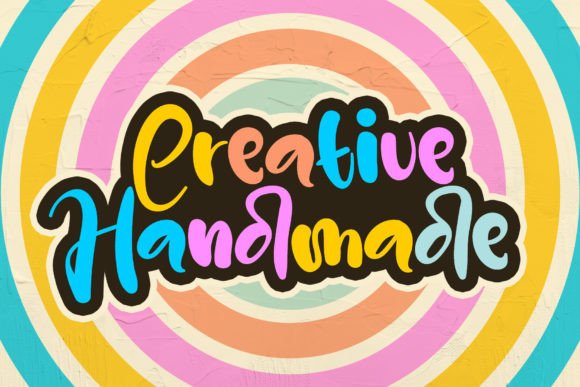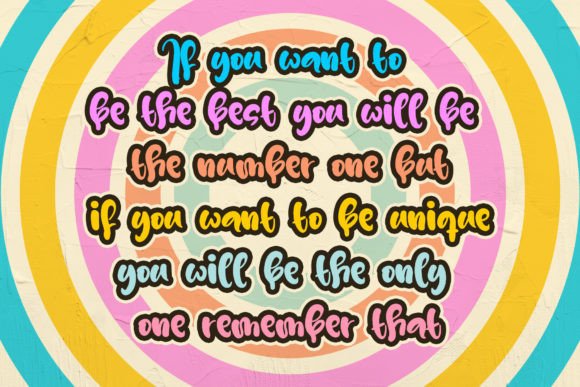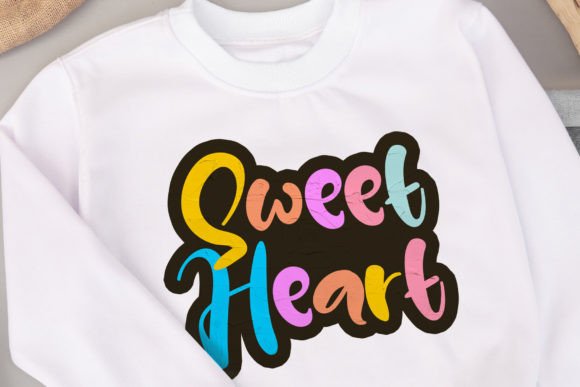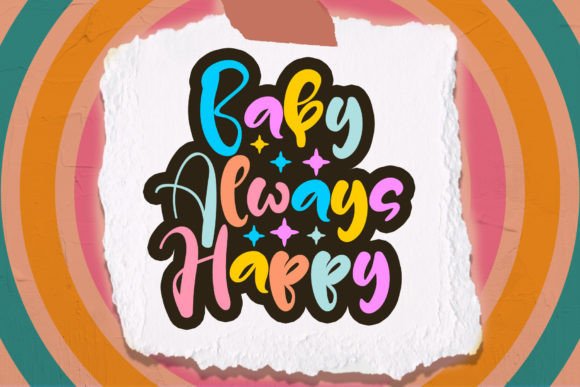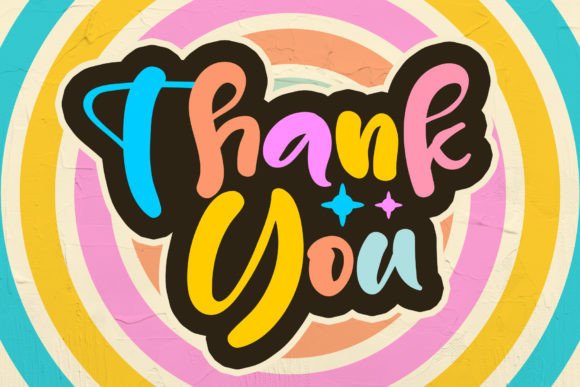
Binder Font: The Ultimate Choice for Cheerful Designs
Are you looking for a font that can add a touch of fun and quirkiness to your designs? Look no further than Binder Font! This display font is perfect for use on cheerful topics and is especially suitable for children’s themed designs. When combined with bright colors, Binder Font can create a visually appealing and engaging design that kids will love.
What Makes Binder Font Special?
Binder Font is a unique and creative font that is designed to bring a smile to your face. Its fun and quirky style makes it perfect for use on a variety of design projects, from children’s books and educational materials to posters and flyers. The font is also highly versatile, and can be used on a range of themes, from playful and whimsical to bold and colorful.
One of the best things about Binder Font is that it is PUA (Private Use Area) encoded. This means that you can access all of the amazing glyphs and ligatures with ease, giving you even more creative freedom when designing. With PUA encoding, you can easily insert special characters and glyphs into your design, making it even more visually appealing and unique.
Perfect for Children’s Themed Designs
Binder Font is especially suitable for children’s themed designs, such as kids’ books, educational materials, and children’s party invitations. The font’s fun and playful style is sure to delight kids and make your design stand out. When combined with bright colors and engaging graphics, Binder Font can help create a design that kids will love and that will leave a lasting impression.
Why Designers and Crafters Love Binder Font
Designers and crafters love Binder Font for its unique and creative style, as well as its versatility and ease of use. The font is perfect for a range of design projects, from digital crafts to commercial designs. With Binder Font, you can create a wide range of designs, from fun and playful to bold and colorful, making it a great addition to your font collection.
Tips for Using Binder Font
Here are a few tips for using Binder Font in your designs:
- Use bright and bold colors to really make your design pop.
- Experiment with different glyphs and ligatures to add visual interest to your design.
- Combine Binder Font with other fun and playful fonts to create a unique and eye-catching design.
- Use Binder Font for headings and titles to add a touch of fun and whimsy to your design.
In conclusion, Binder Font is a fun and quirky display font that is perfect for use on cheerful topics. With its PUA encoding and wide range of glyphs and ligatures, Binder Font is a versatile and creative font that is sure to delight designers and crafters alike. Whether you’re working on a children’s themed design or just want to add a touch of fun and whimsy to your project, Binder Font is a great choice.